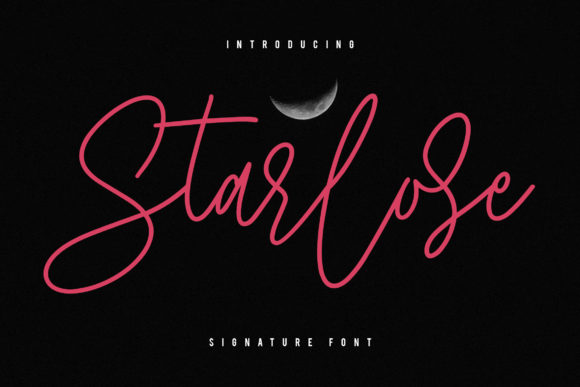
Unleash your boundless creativity with Starlose Font, the epitome of elegance and sophistication. This captivating script font, meticulously crafted by Maulana Creative, is a visual symphony that will transform your designs into breathtaking masterpieces. Embark on an artistic odyssey with Starlose, a font that flows like a gentle stream, gracefully adorning your projects with its enchanting allure.
With Starlose, you possess the power to evoke emotions, communicate messages, and leave a lasting impression on your audience. Its fluidity and grace make it the perfect choice for fitness logos, where it will inspire movement and energy. Whether you're a seasoned designer or just starting your creative journey, Starlose will elevate your work to new heights, captivating all who lay eyes upon it.
Immerse yourself in the world of Starlose and discover a font that is both versatile and distinctive. Its flowing lines dance across the page, creating a visual spectacle that will leave you mesmerized. Use Starlose to craft stunning logos, eye-catching social media graphics, or personalized invitations that exude elegance and charm.
Starlose is more than just a font; it's an artistic tool that empowers you to express your individuality and make a statement. Its unique style will set your designs apart from the ordinary, leaving a lasting impression on your audience. Embrace the allure of Starlose and embark on a creative journey that knows no bounds. Unleash your imagination and let Starlose guide you towards design excellence.